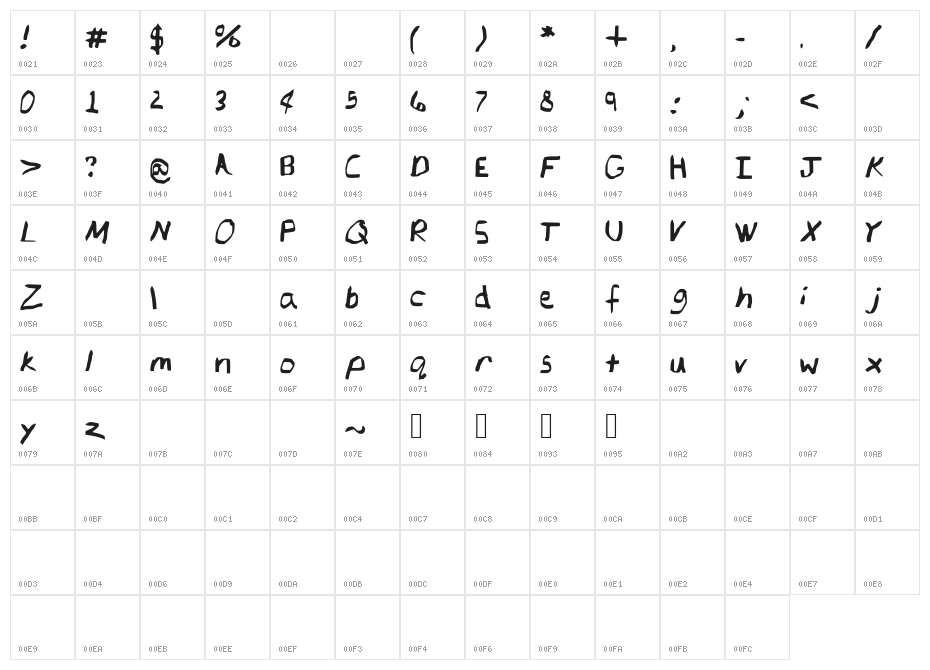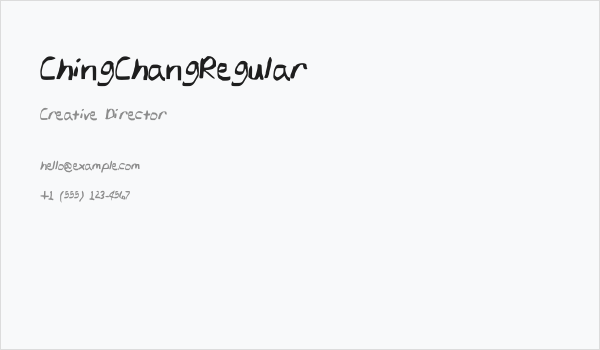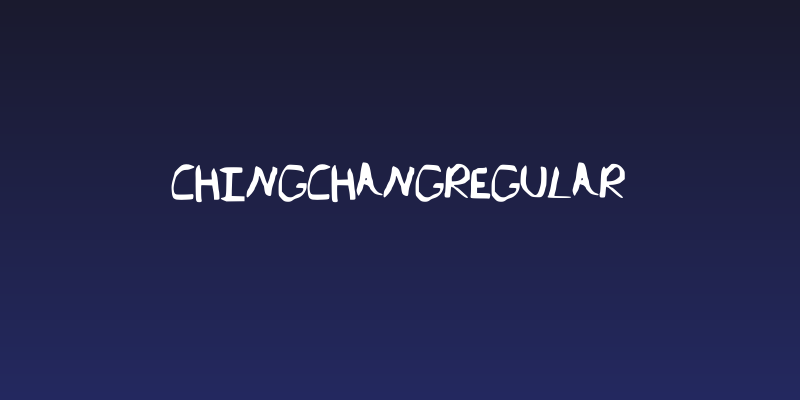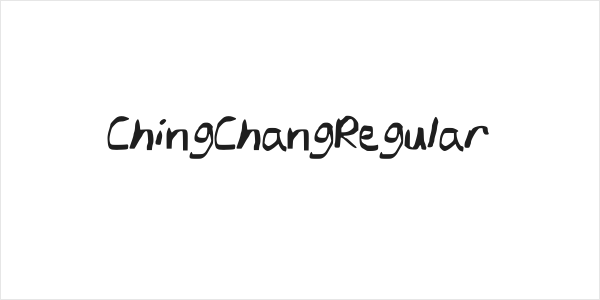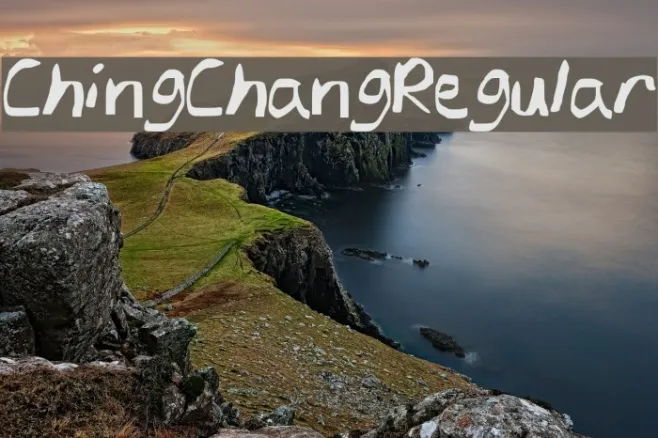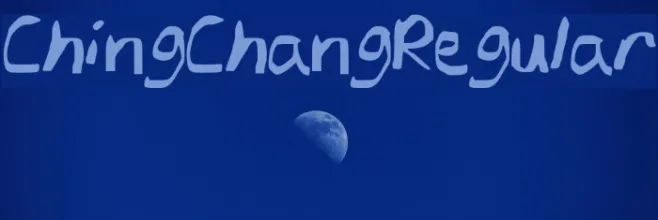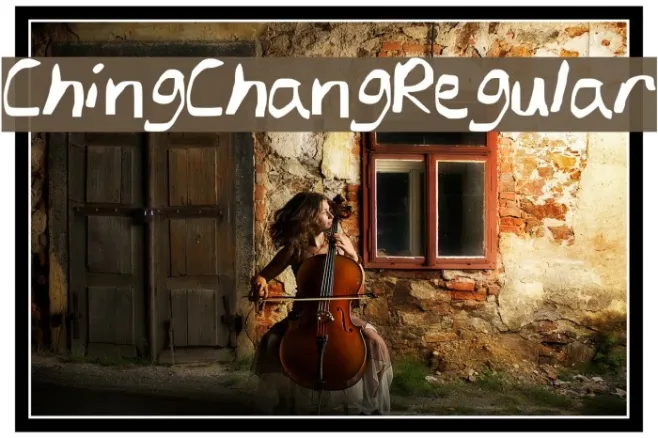
ChingChangRegular Font
ChingChangRegular Description
This font exhibits a playful and informal handwritten style, characterized by its irregular and dynamic strokes. The letters have a casual, almost whimsical appearance, with varying thicknesses that add a sense of movement and energy. The uppercase and lowercase letters are distinct yet harmonious, maintaining a consistent flow throughout. The numbers and special characters follow the same lively aesthetic, making the font suitable for creative and expressive projects. Its unique style captures attention and conveys a sense of individuality and creativity.
| Proposed Projects | Ideal for greeting cards, children's books, casual branding, and creative posters. |